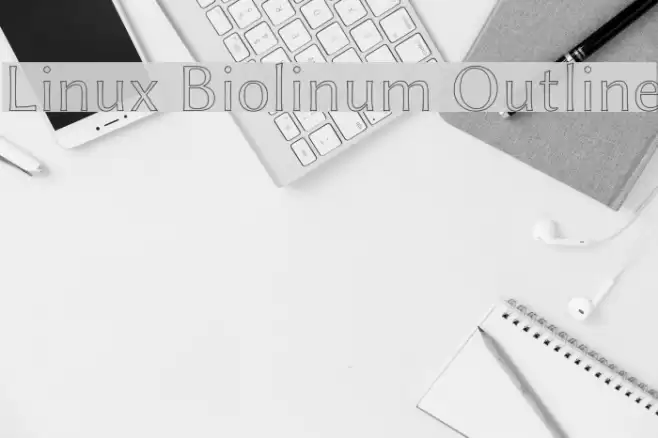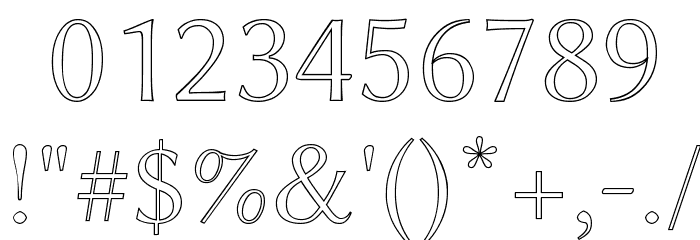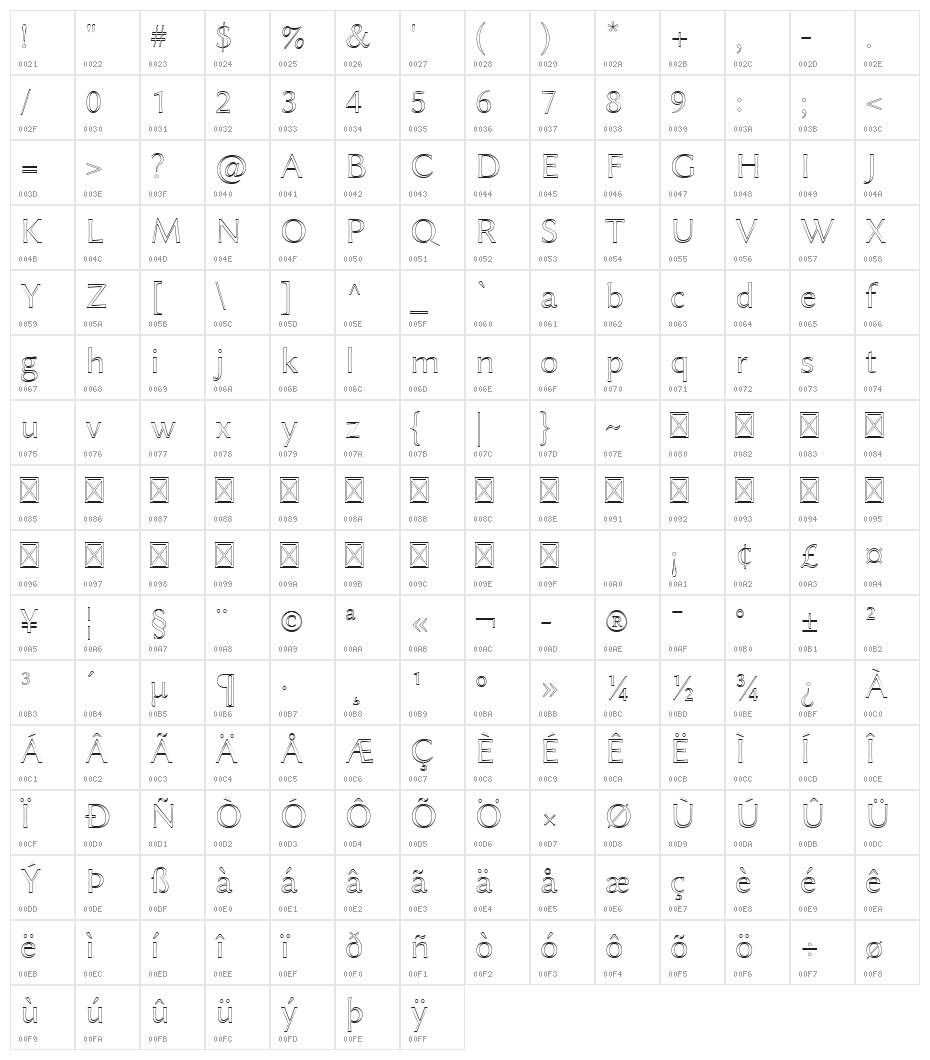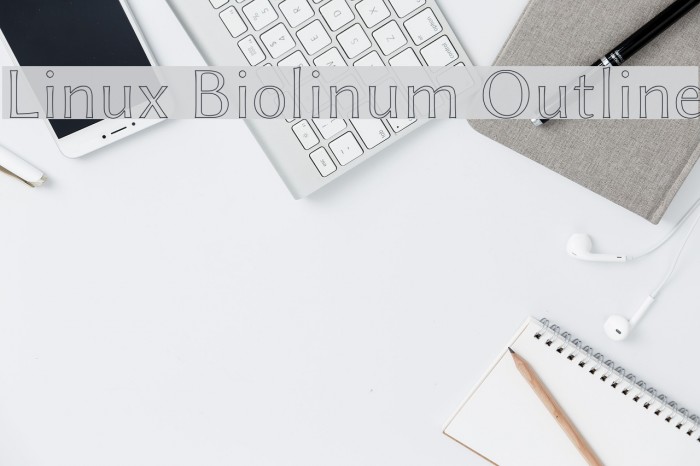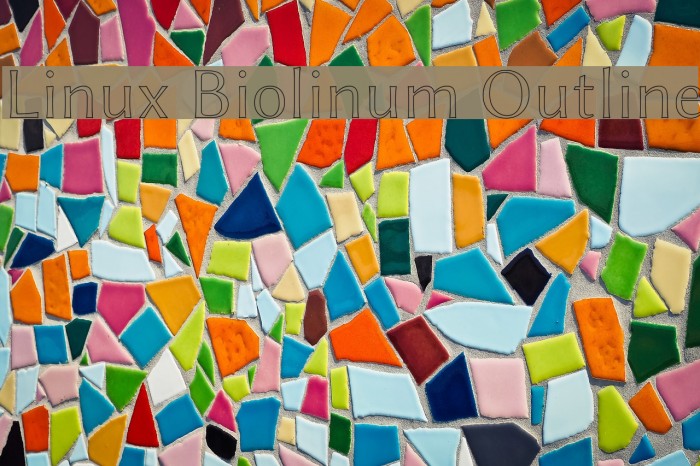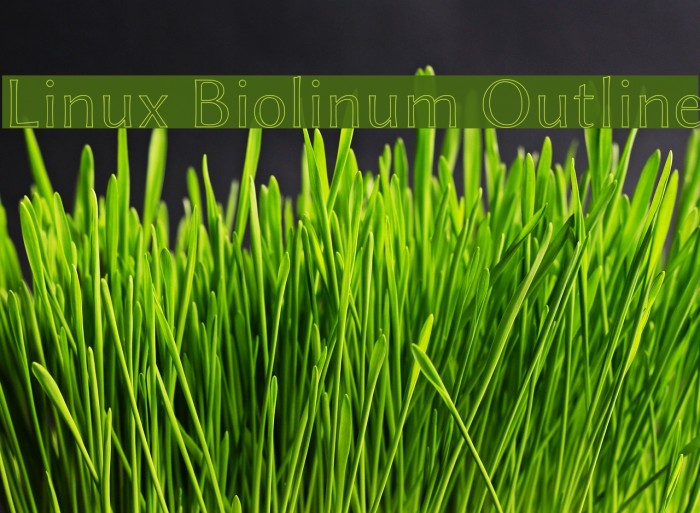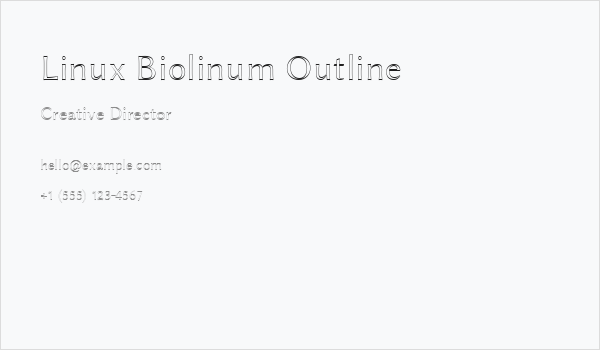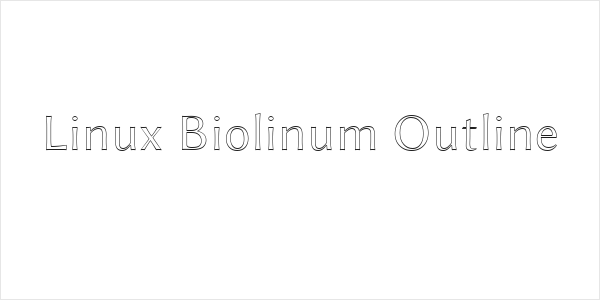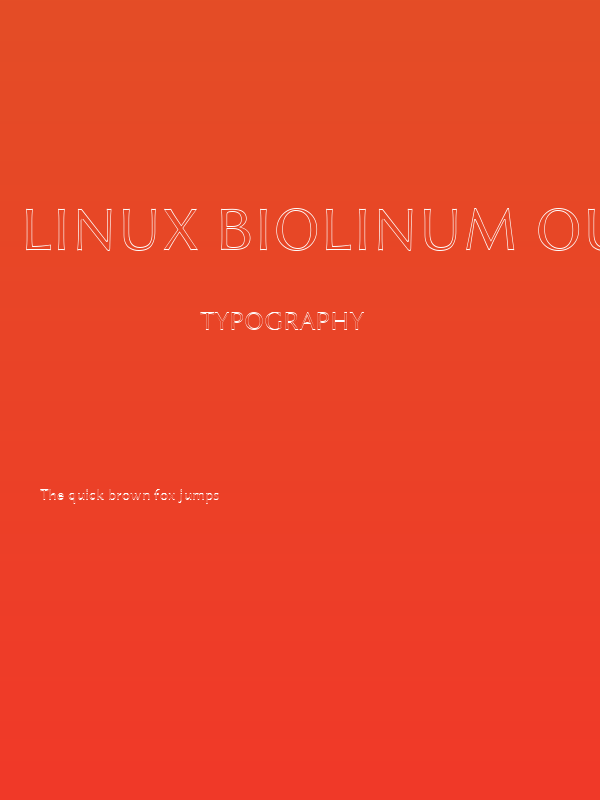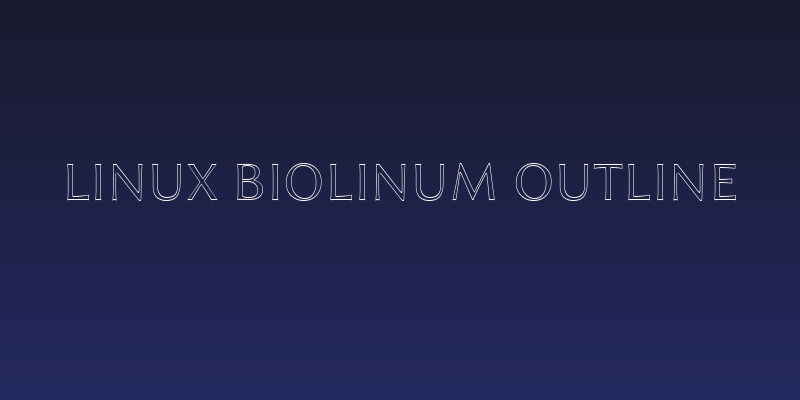
Linux Biolinum Outline Font
Linux Biolinum Outline Description
This font features a clean and elegant outline style, characterized by its open and airy design. The uppercase and lowercase letters maintain a consistent geometric structure, offering a modern yet timeless appearance. The numerals are clear and distinct, making them easily readable. Special characters are well-integrated, maintaining the overall aesthetic. The font's outline nature gives it a unique look, suitable for creative and artistic projects where a light and sophisticated touch is desired.
A clean, elegant outline font with a modern geometric structure from Uncategorized fonts.
- Proposed Projects: Ideal for creative projects such as posters, logos, and artistic designs where a unique and sophisticated appearance is desired.
- Use Case: Logos, Posters, Artistic Designs